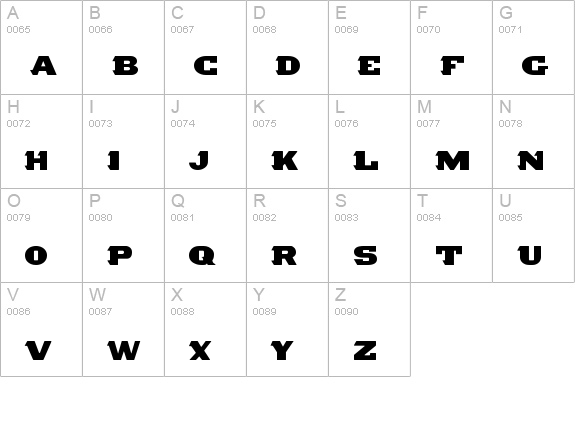
NFL Cincinnati Bengals Font Details
The NFL Cincinnati Bengals font is a stunning display of boldness and power, capturing the essence of the renowned football team. This unique font combines sleek lines and sharp edges to create a visually striking typeface that perfectly represents the energy and intensity of the Bengals on the field. With its distinct letterforms and strong presence, the NFL Cincinnati Bengals font demands attention and commands respect. Each character is meticulously designed to exude a sense of strength and determination, making it the ideal choice for any sports-related project or design that requires a touch of fierceness. One of the most enticing aspects of the NFL Cincinnati Bengals font is that it is freely available to download at FontsMarket.com. This means that designers, enthusiasts, and fans alike can easily access this extraordinary font without any cost, allowing them to add a touch of the Bengals' spirit to their creations. Whether it's for creating team jerseys, promotional materials, or even personal artwork, the NFL Cincinnati Bengals font is an invaluable resource that adds a powerful punch to any design. So, if you're looking to capture the essence of the Cincinnati Bengals and infuse your design projects with the same energy and passion that this legendary football team embodies, look no further than the NFL Cincinnati Bengals font. With its striking aesthetics and availability as a free download on FontsMarket.com, this font is a must-have for any design arsenal. Get your hands on it now and let the Bengals' spirit shine through your creative endeavors.